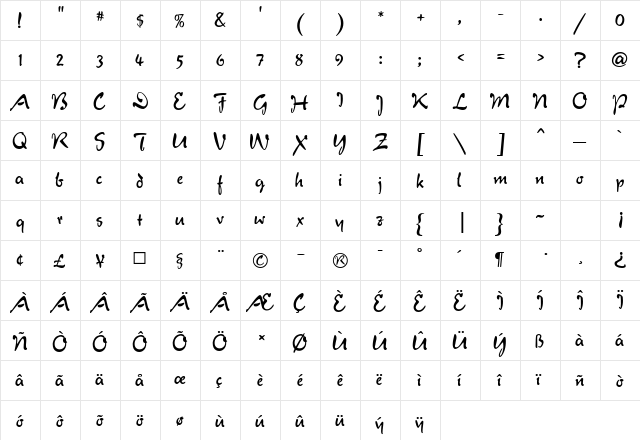
Verona Script MF Regular
Design Context for Verona Script MF Typeface
Verona Script MF brings a calligraphic fluidity to the page — its connecting strokes and expressive curves give it an unmistakably human quality.
Font Pairing: Combine Verona Script MF with a simple geometric sans for maximum contrast — the tension between flowing curves and clean structure is a classic typographic pairing.
Pro Tip: Pair Verona Script MF with a clean sans-serif for supporting text. The contrast between fluid script and geometric structure creates an elegant typographic hierarchy.